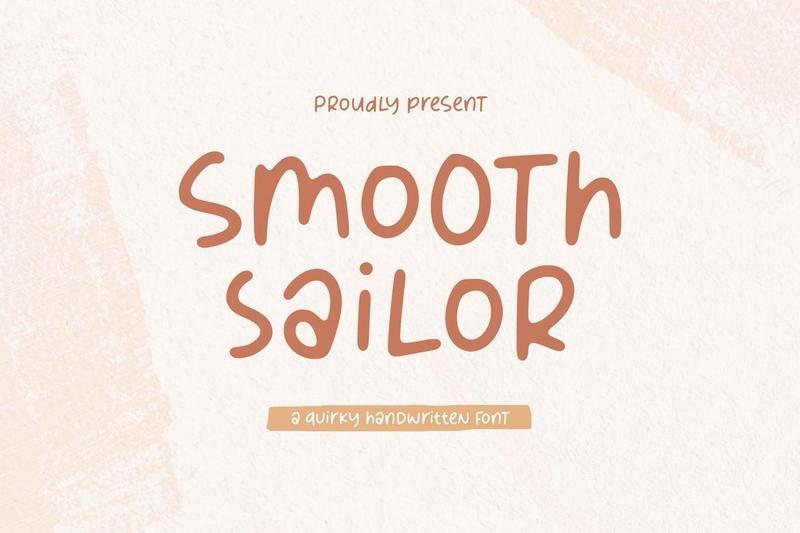
Smooth Sailor Font 6HMEQ5Z
Smooth Sailor A Quirky Handwritten Font, which was created with great care and specially created for you.
Smooth Sailor is perfect for product packaging, branding project, megazine, social media, wedding, or just used to express words above the background.